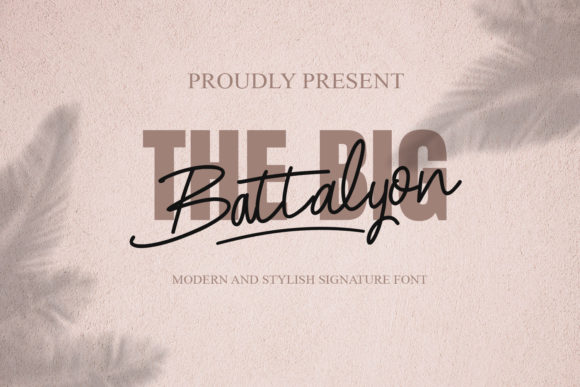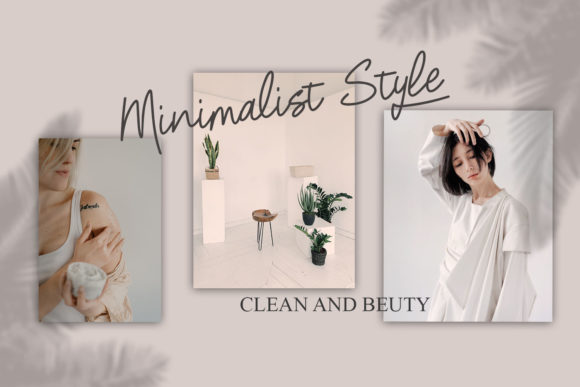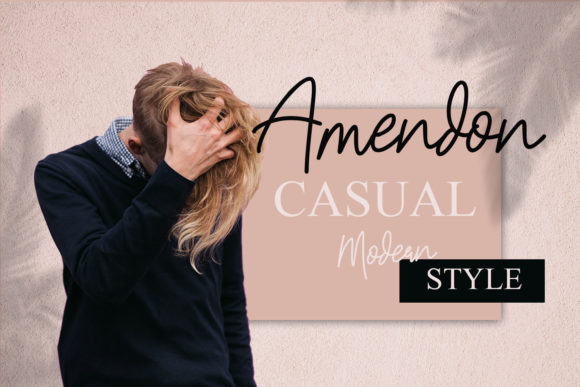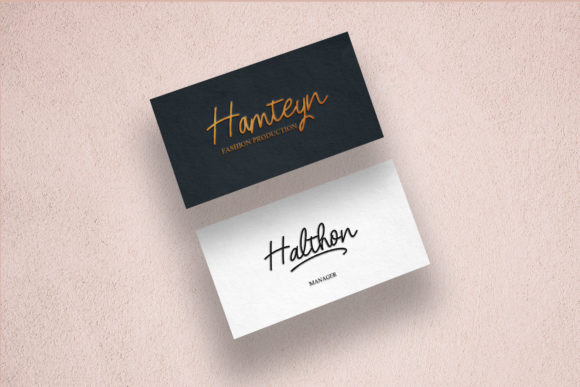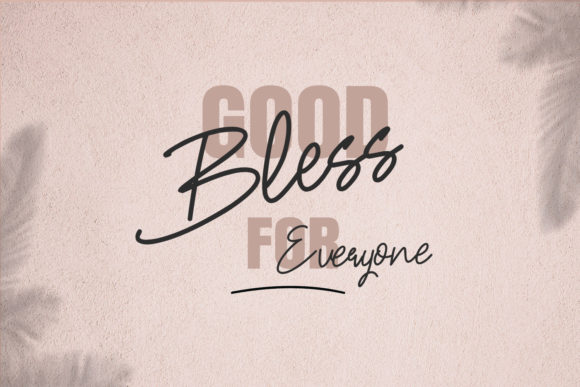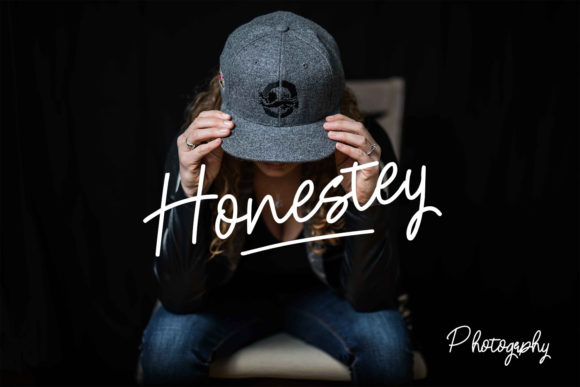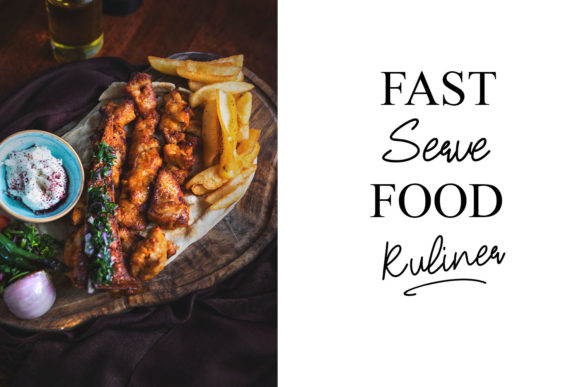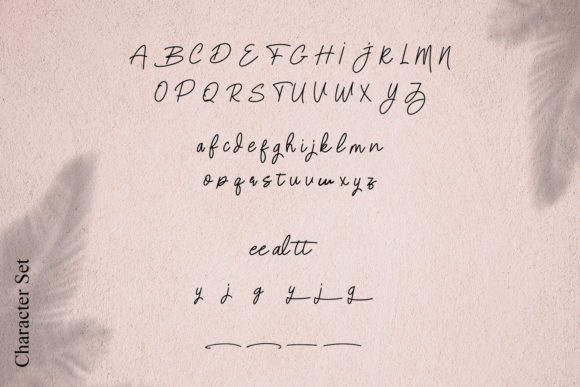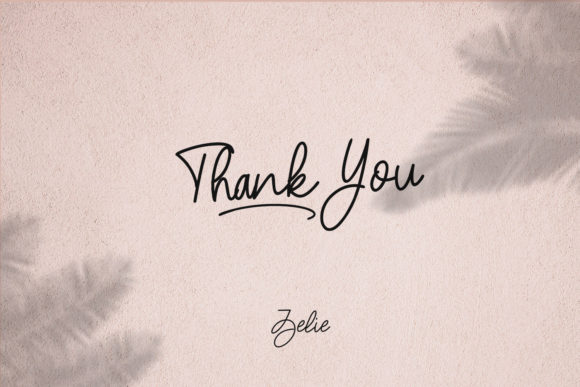
The Big Battalyon Font
About The Big Battalyon Font
The Big Battalyon is a gorgeous and fun script font that radiates authenticity. Fall in love with its unique approach to lettering!